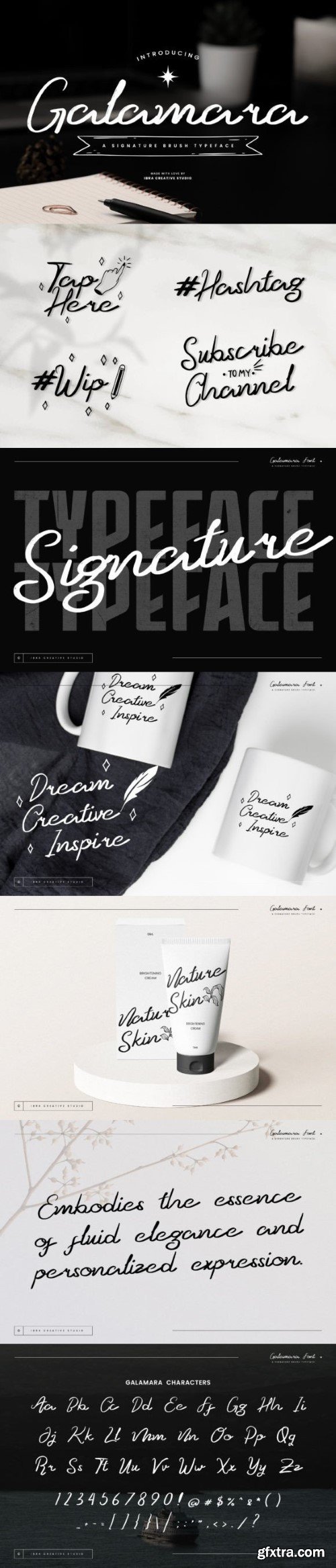
加马拉字体
Galamara, a signature brush typeface, embodies the essence of fluid elegance and personalized expression. Its letterforms, crafted with meticulous attention, carry a unique brushstroke texture that evokes a sense of handcrafted authenticity. The strokes gracefully flow, mirroring the organic nuances of a handwritten signature. Galamara strikes a perfect balance between sophistication and approachability, making it an ideal choice for projects seeking a touch of individuality and refined flair.